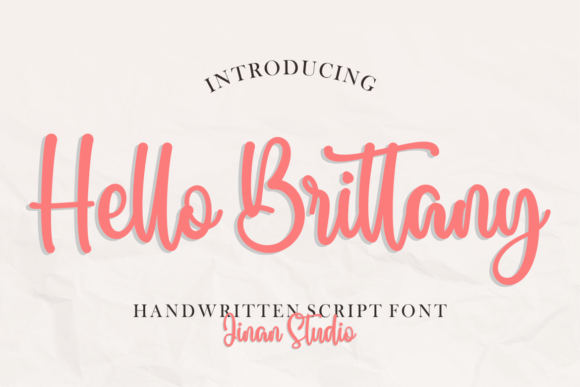
Dive into the world of elegance and charm with Hello Brittany Font, the enchanting script font that will add a touch of magic to your creative projects. Inspired by the beauty of handwritten letters, Hello Brittany captures the essence of romance and sophistication, making it the perfect choice for any design seeking a personal touch.
With its graceful curves and delicate strokes, Hello Brittany effortlessly adds a dash of charm to your designs. Its carefully crafted characters exude a sense of warmth and authenticity, making it ideal for creating heartfelt greeting cards, eye-catching headlines, and captivating social media posts.
Transport yourself to the cozy comfort of a Christmas morning with Hello Brittany. Its whimsical style perfectly complements the festive spirit, bringing a touch of enchantment to your holiday-themed designs. Create stunning Christmas cards adorned with heartfelt messages, design gift tags that exude a personal touch, or craft enchanting invitations that promise a magical celebration.
Unlock your creativity and explore the limitless possibilities of Hello Brittany. Its versatility extends beyond the realm of Christmas designs, making it a perfect choice for a wide range of projects. Whether you're designing wedding invitations, creating logos that radiate elegance, or crafting social media posts that demand attention, Hello Brittany rises to the occasion.
Experience the allure of Hello Brittany and elevate your designs to new heights. Its beauty and charm will leave a lasting impression on your audience, captivating their hearts and minds with its romantic essence. Embrace the power of Hello Brittany and embark on a creative journey that will ignite your imagination and leave you breathless.